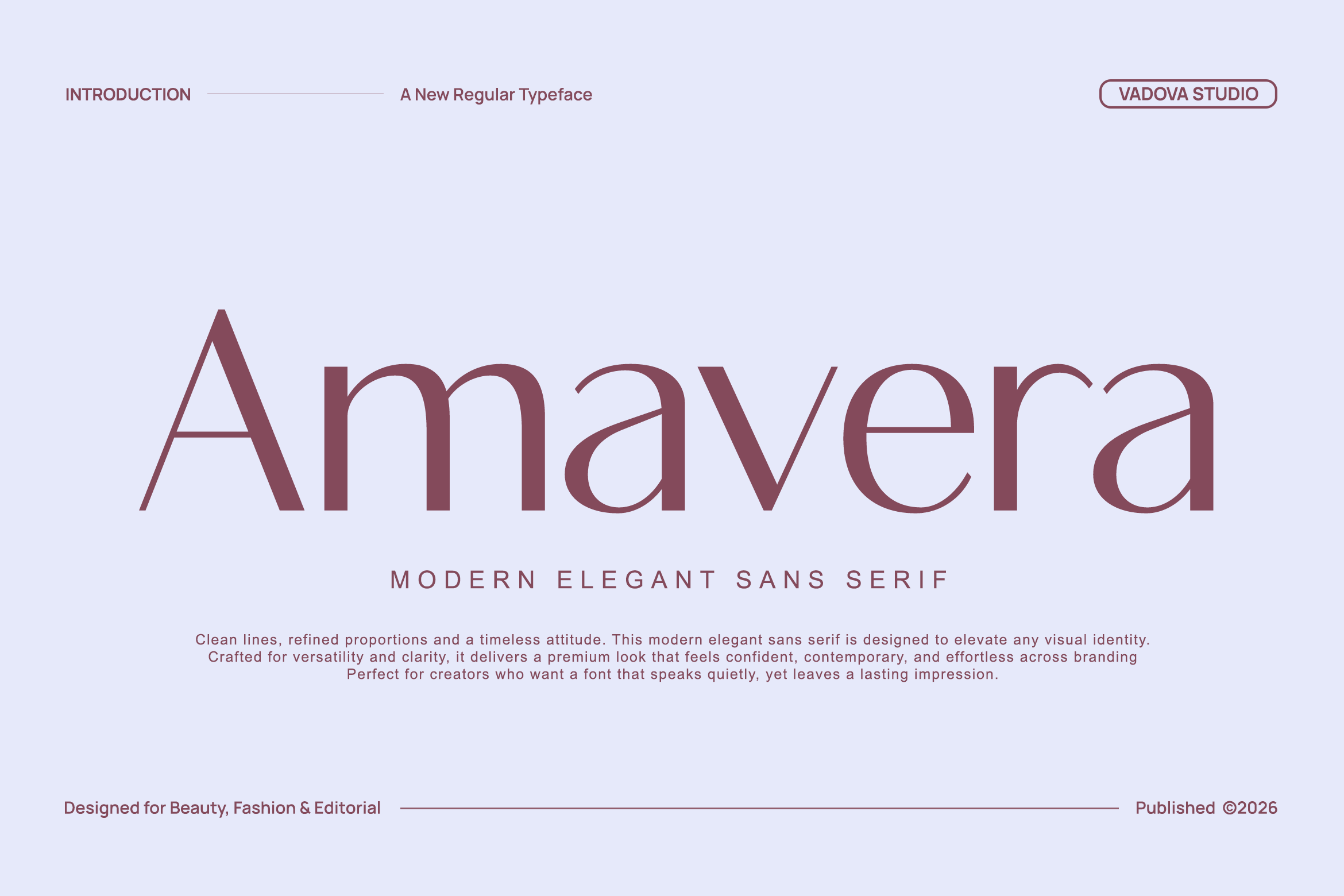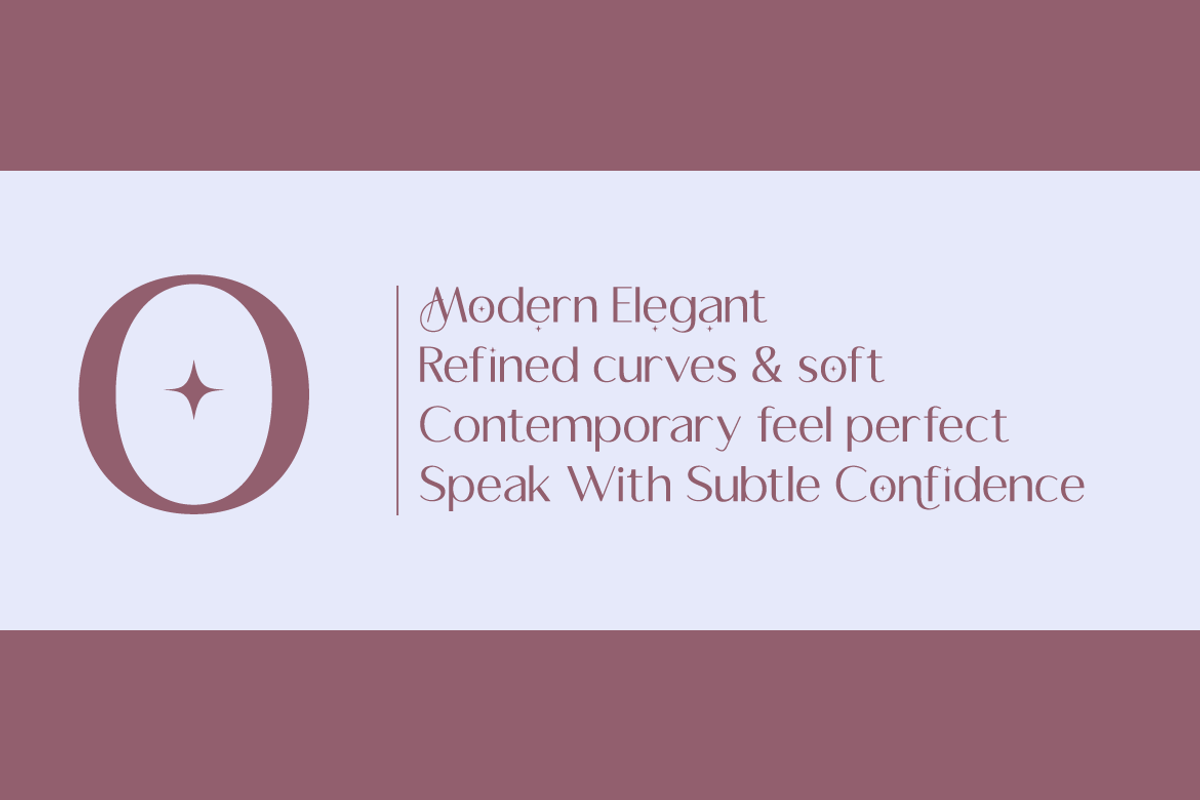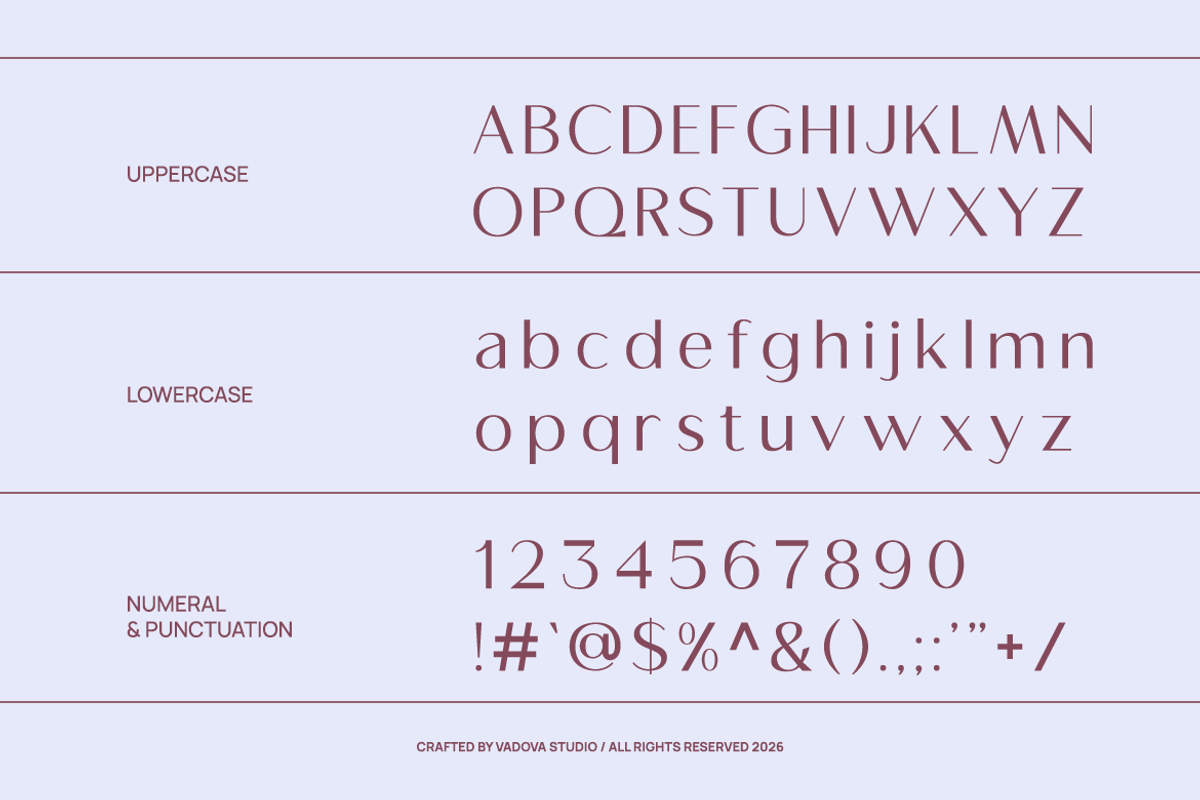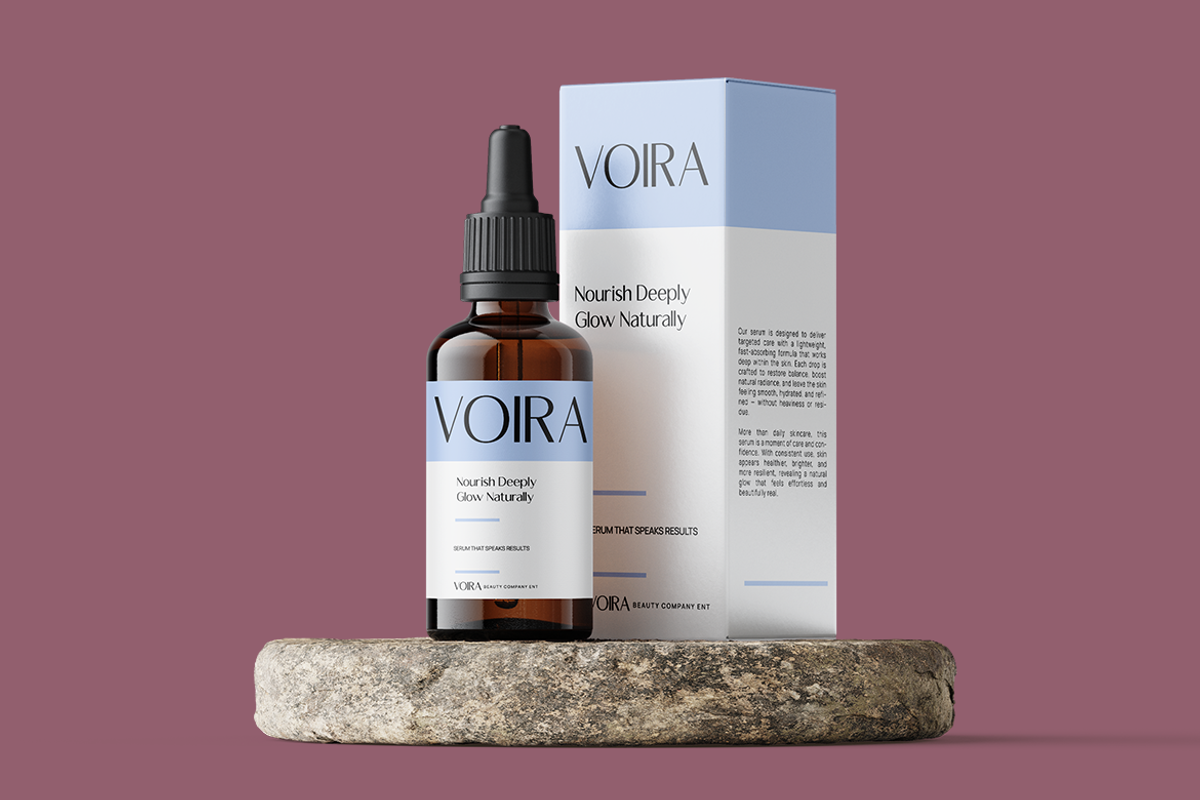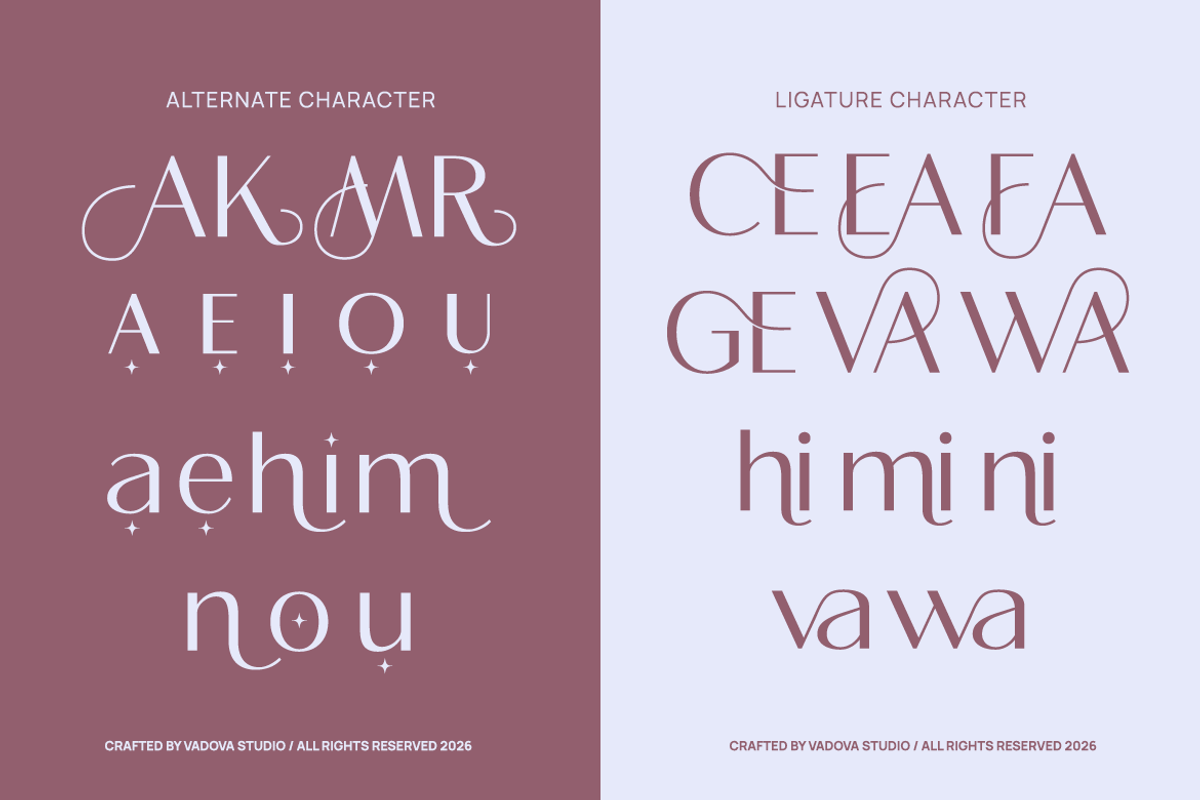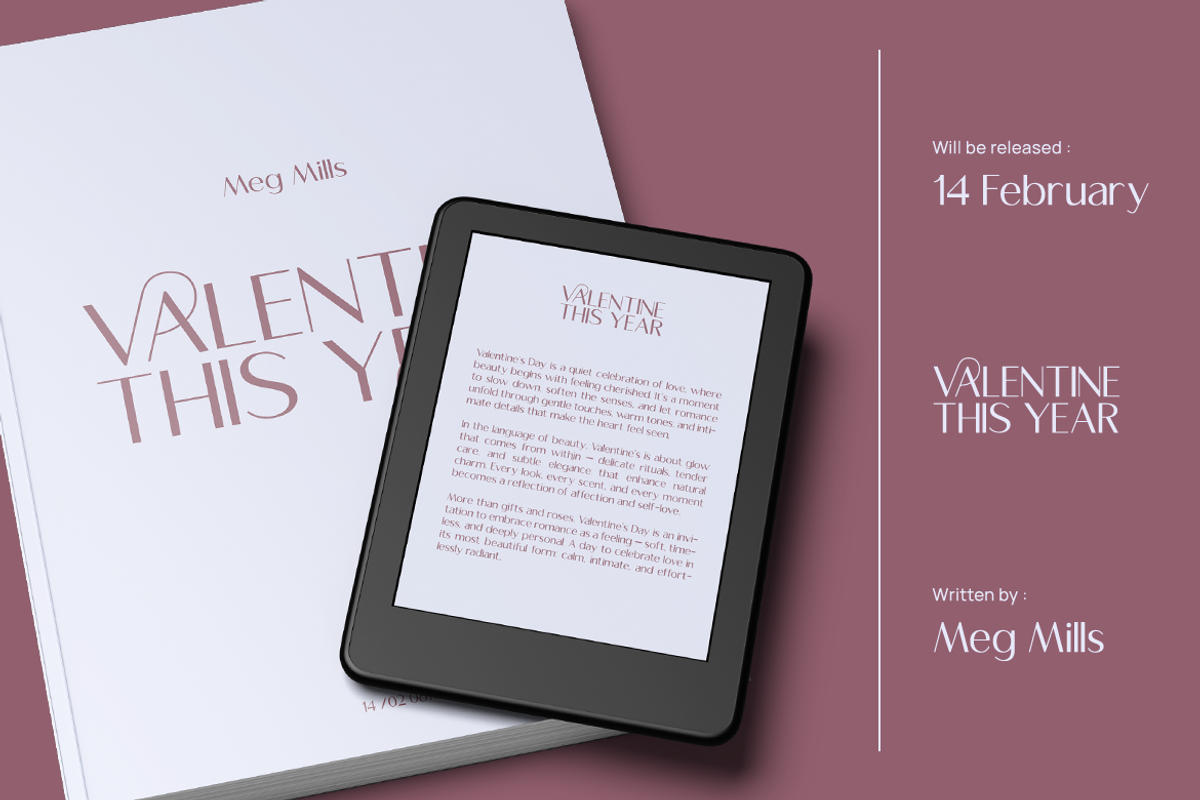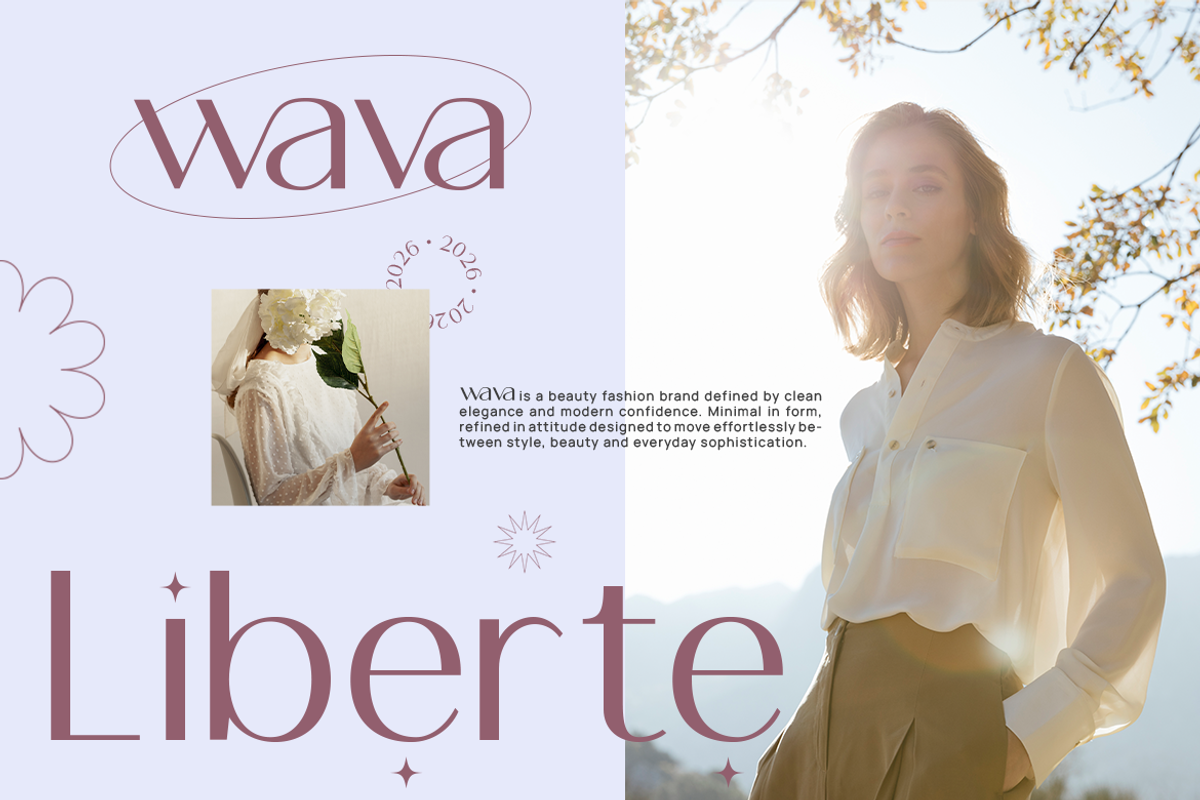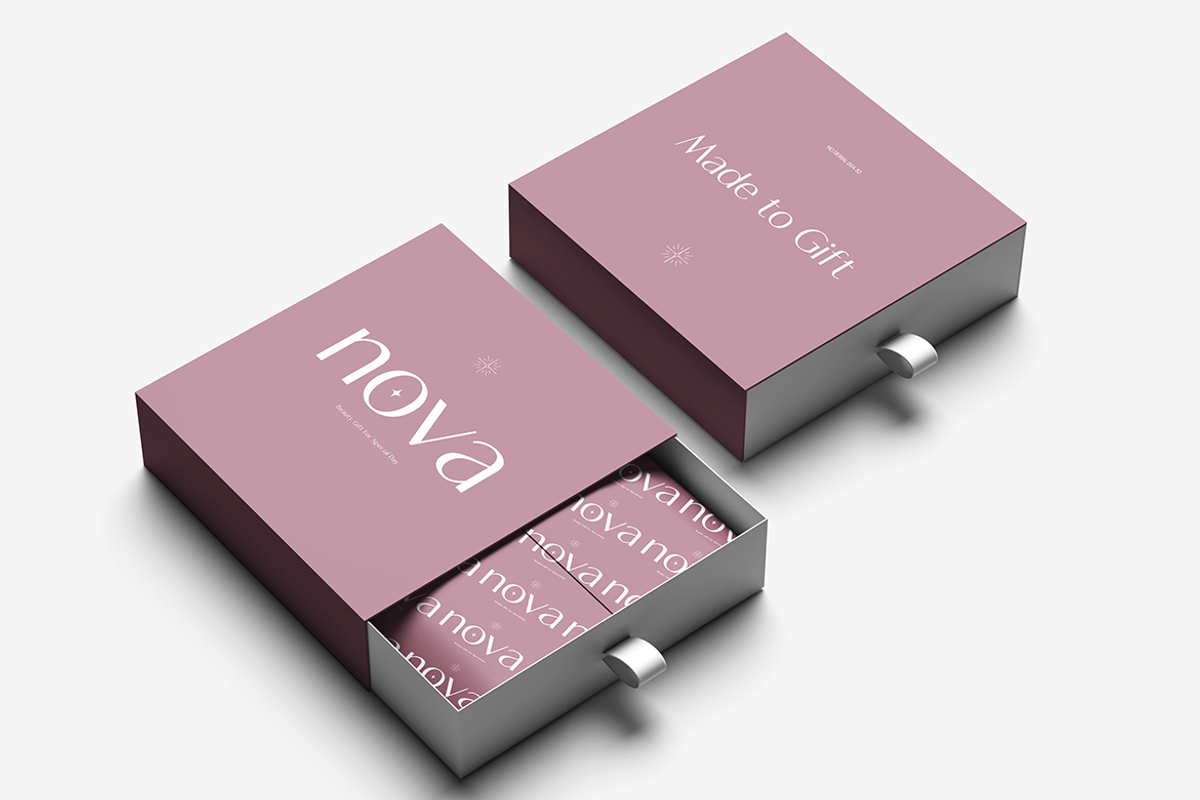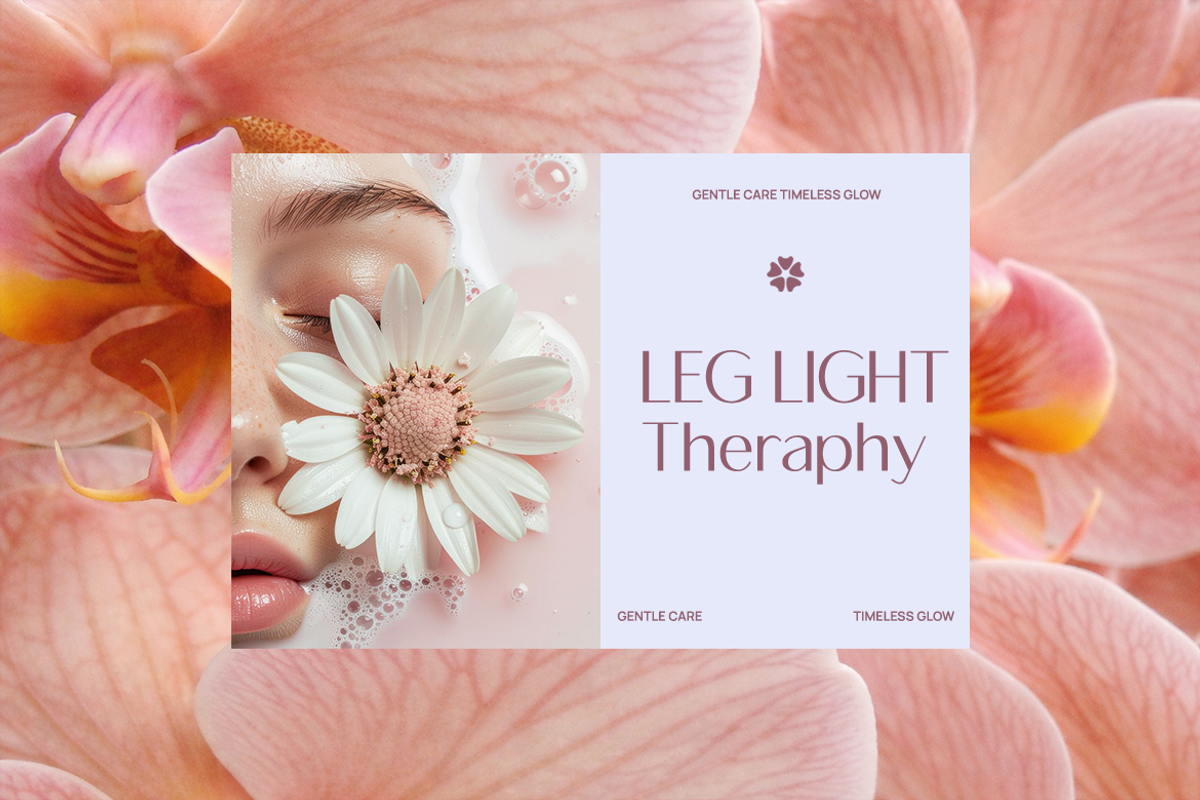
Amavera Modern Elegant Sans Font
Amavera is a modern elegant sans serif typeface designed with clean lines, refined proportions, and a timeless aesthetic. Crafted to balance minimalism and sophistication, it delivers a confident yet understated presence across a wide range of design applications. Amavera is ideal for branding, editorial layouts, fashion campaigns, beauty packaging, and contemporary visual identities. Its modern structure ensures clarity and versatility while maintaining a premium, graceful tone.
Amavera is highly relevant for designers working in fashion, beauty, lifestyle, and editorial industries. Its refined yet modern appearance makes it perfect for brand identity systems, magazine layouts, website headers, social media campaigns, and premium packaging. The font performs beautifully in both large headlines and clean supporting text, making it versatile for both print and digital design projects.
- Minimalist sans serif construction with refined, fashion-oriented proportions
- Elegant high-contrast strokes that create a sophisticated, editorial presence
- Subtle curvature in select letterforms for a graceful, feminine touch
- Clean vertical rhythm with balanced spacing for polished compositions
- Designed to perform beautifully in large headlines while remaining clear in supporting text
- Luxury brand identity systems seeking a refined and contemporary tone
- Fashion and beauty editorial layouts with elegant typography
- High-end product packaging and cosmetic label design
- Magazine headlines and minimalist lookbooks
- Social media branding kits with a polished, premium aesthetic